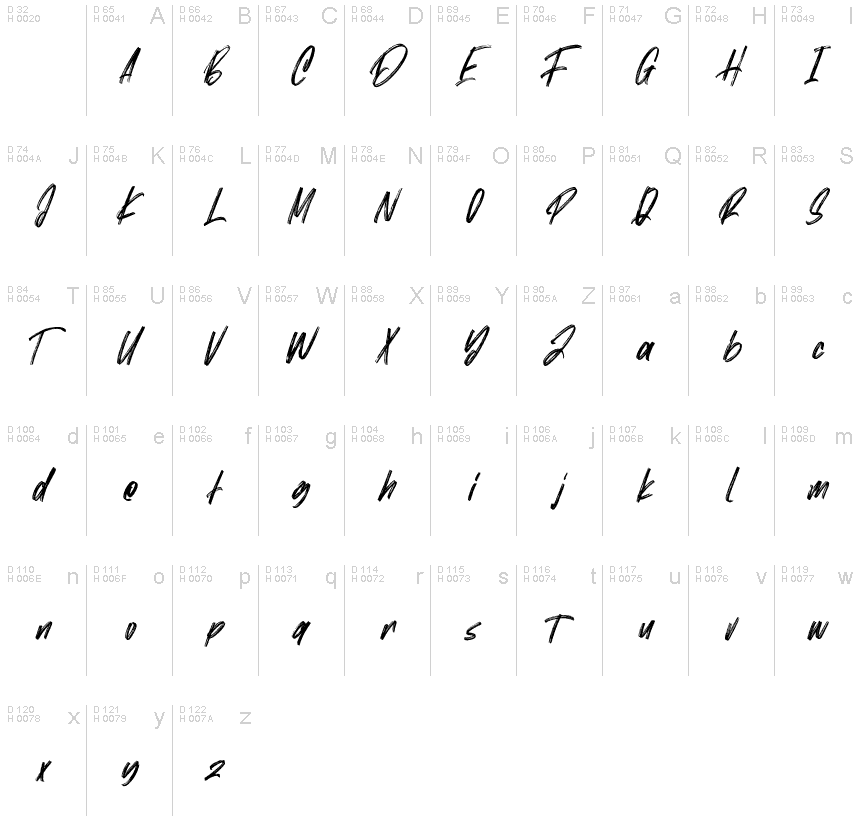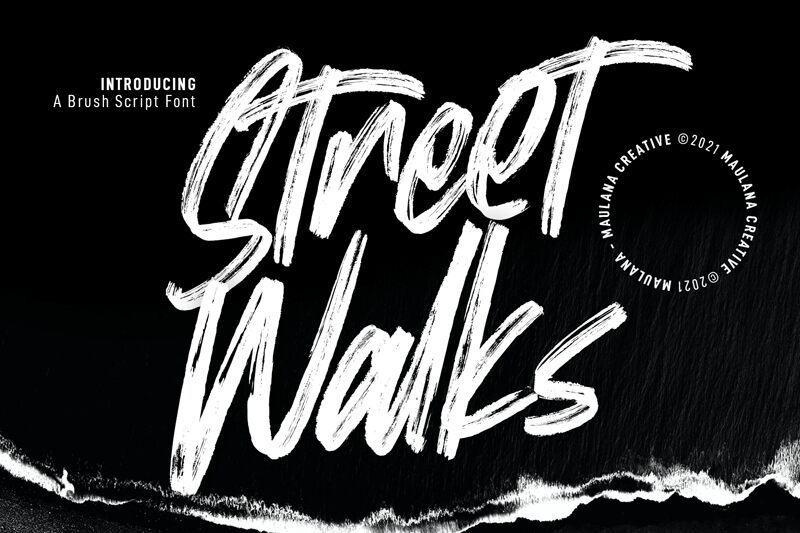
Street Walks Free Regular
Street Walks, the latest creation by Maulana Creative, is a unique dry brush typeface that exudes a raw and urban vibe. Its semi-condensed width adds to the font's edgy appeal, making it perfect for modern designs that require a touch of ruggedness. This versatile font can be used for various projects such as logos, posters, album covers, and social media graphics. With its distinct personality and characterful imperfections, Street Walks is sure to make your designs stand out from the crowd. Dare to take your typography game to the streets with Street Walks!